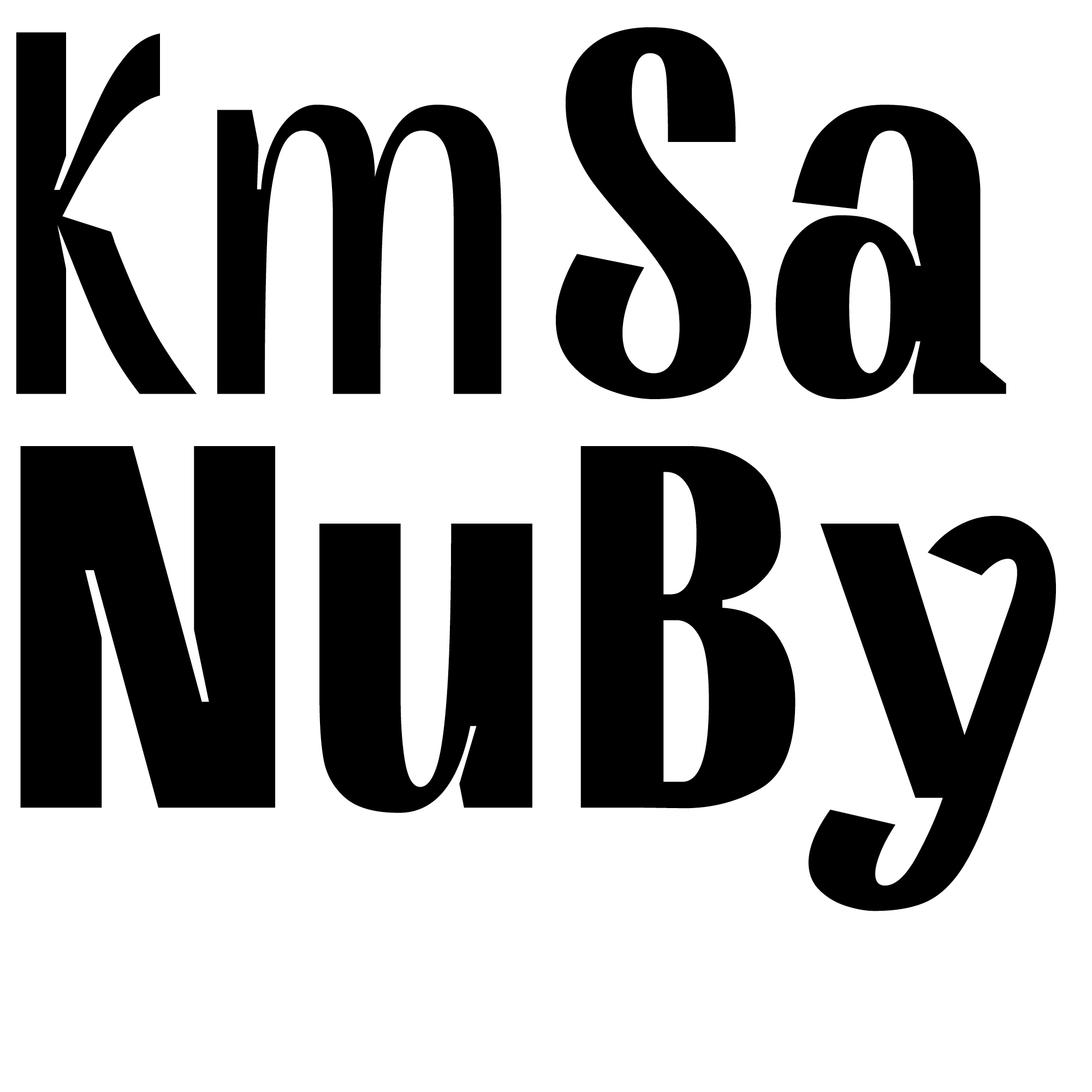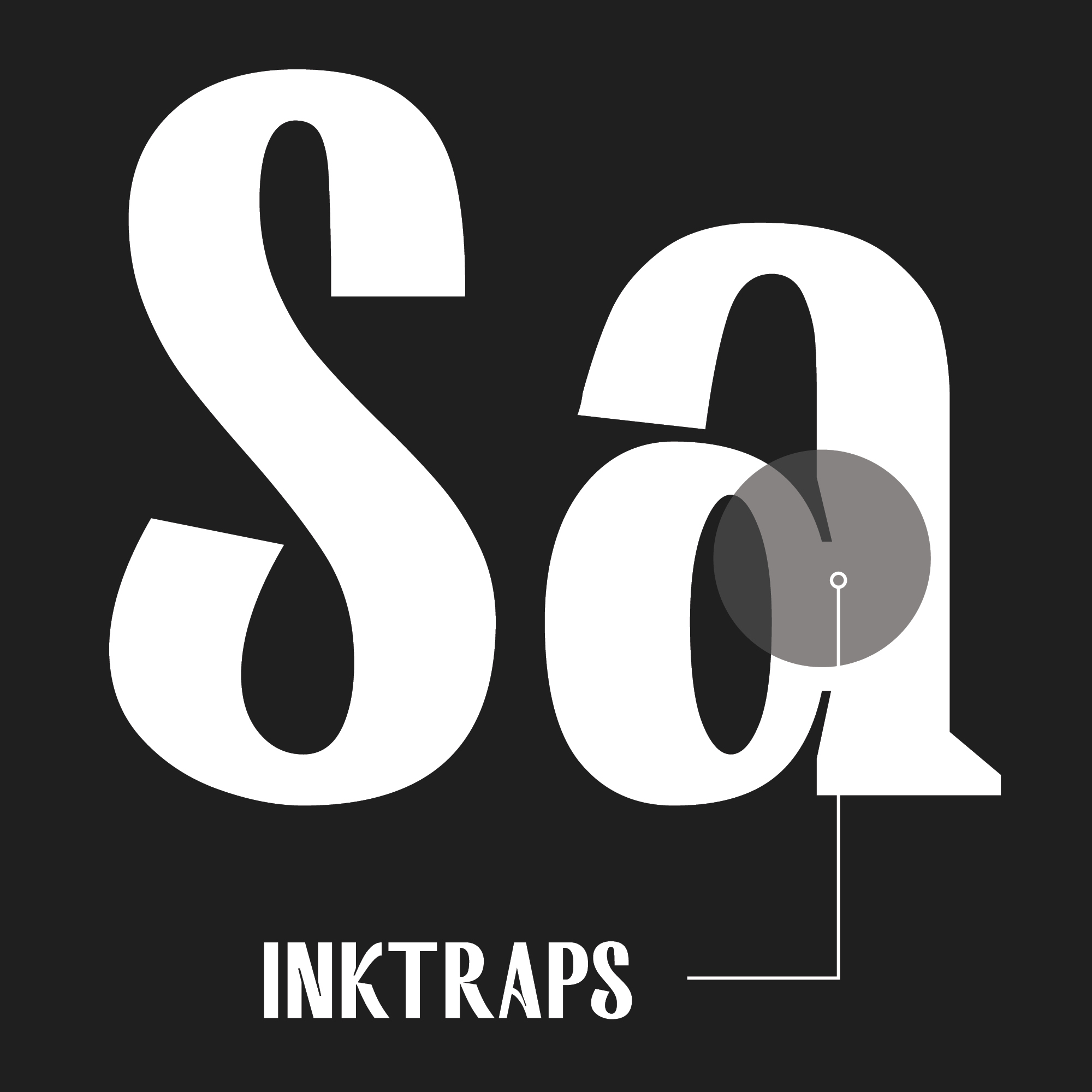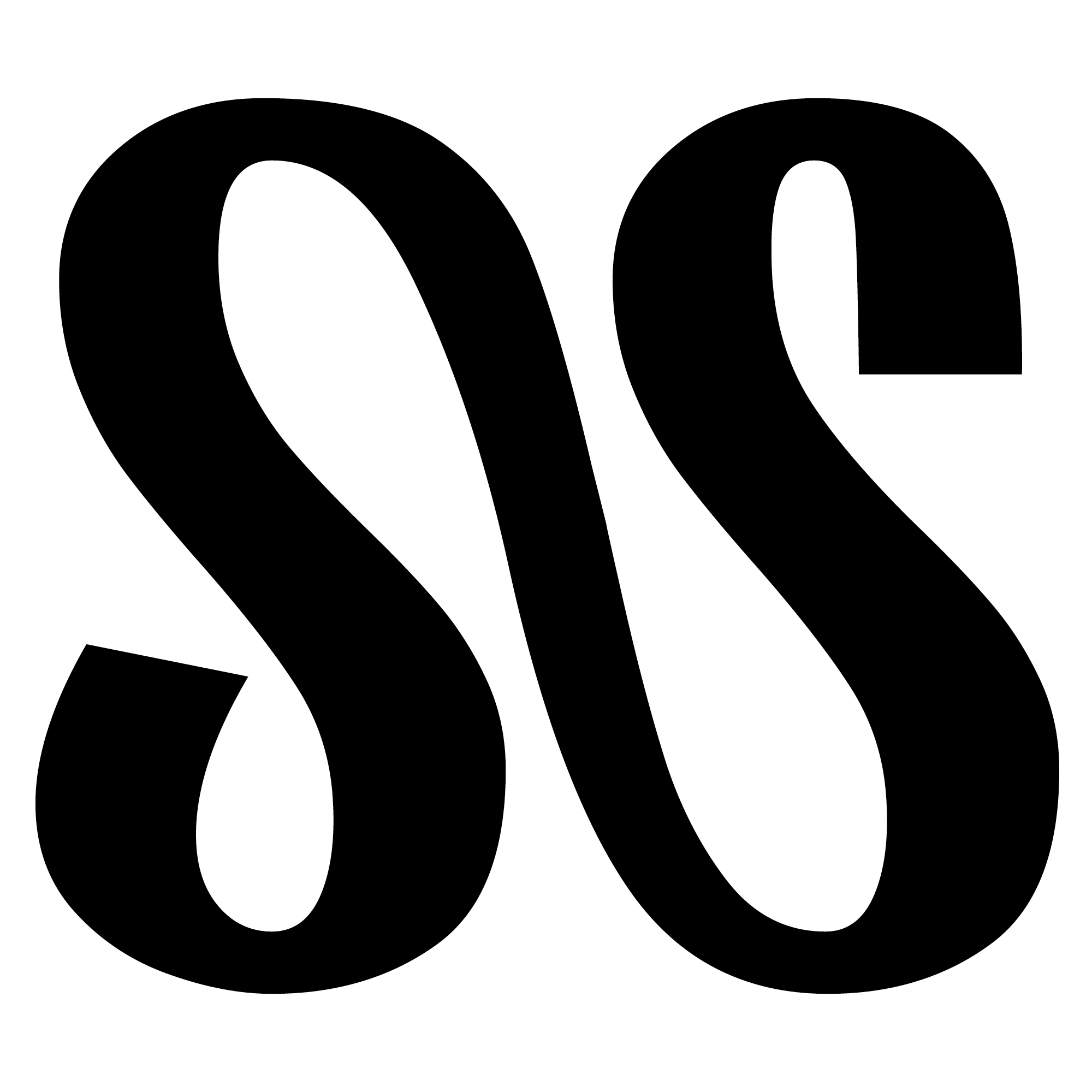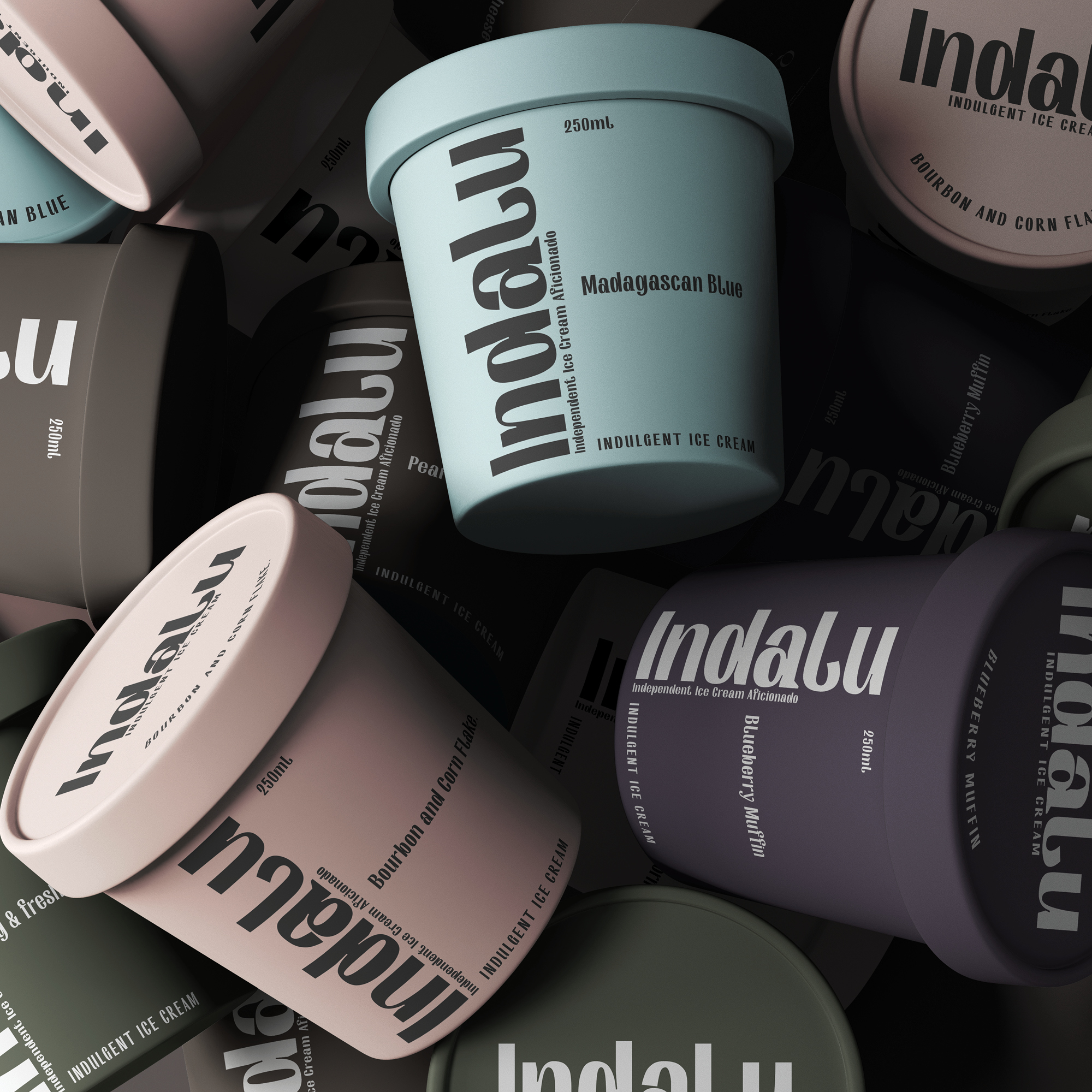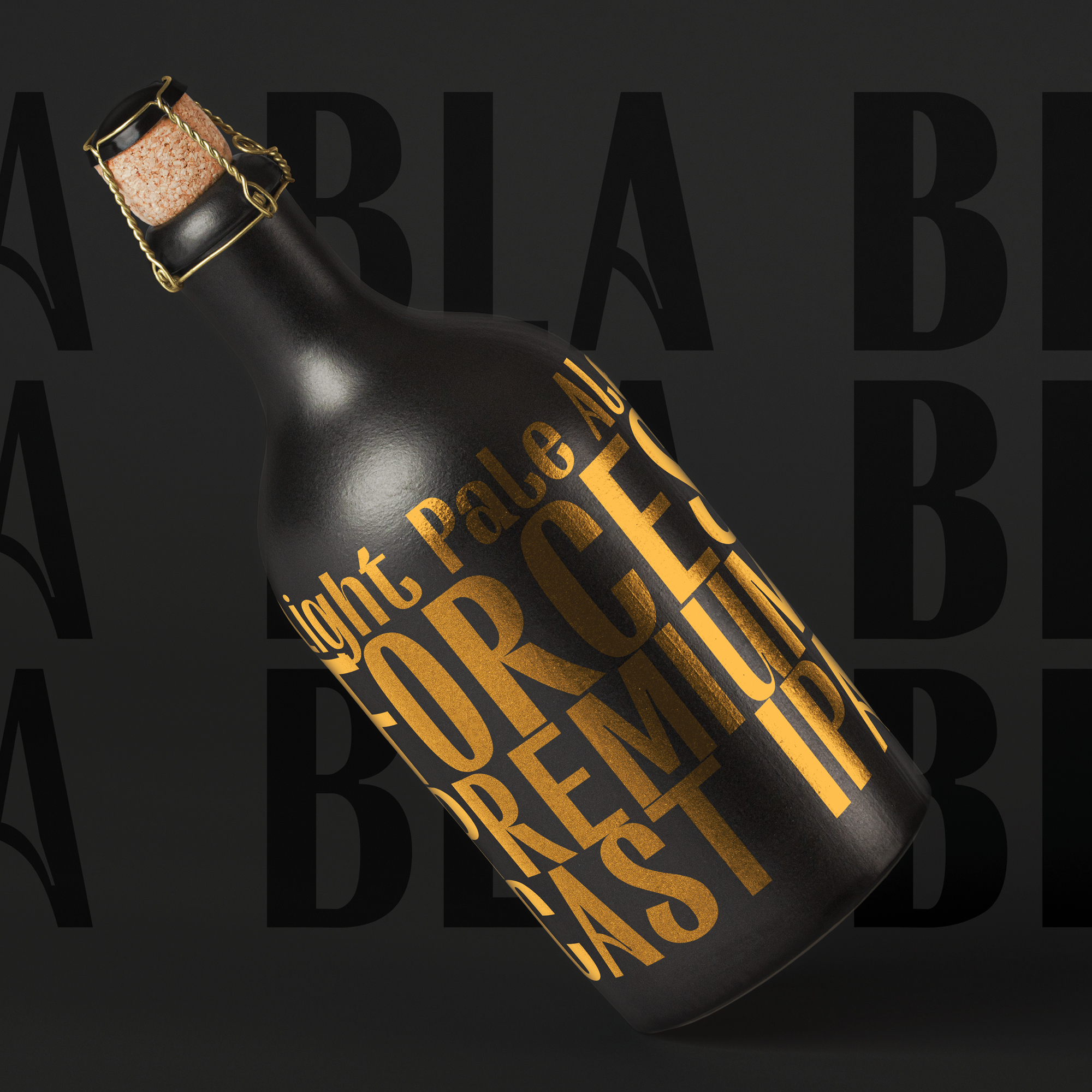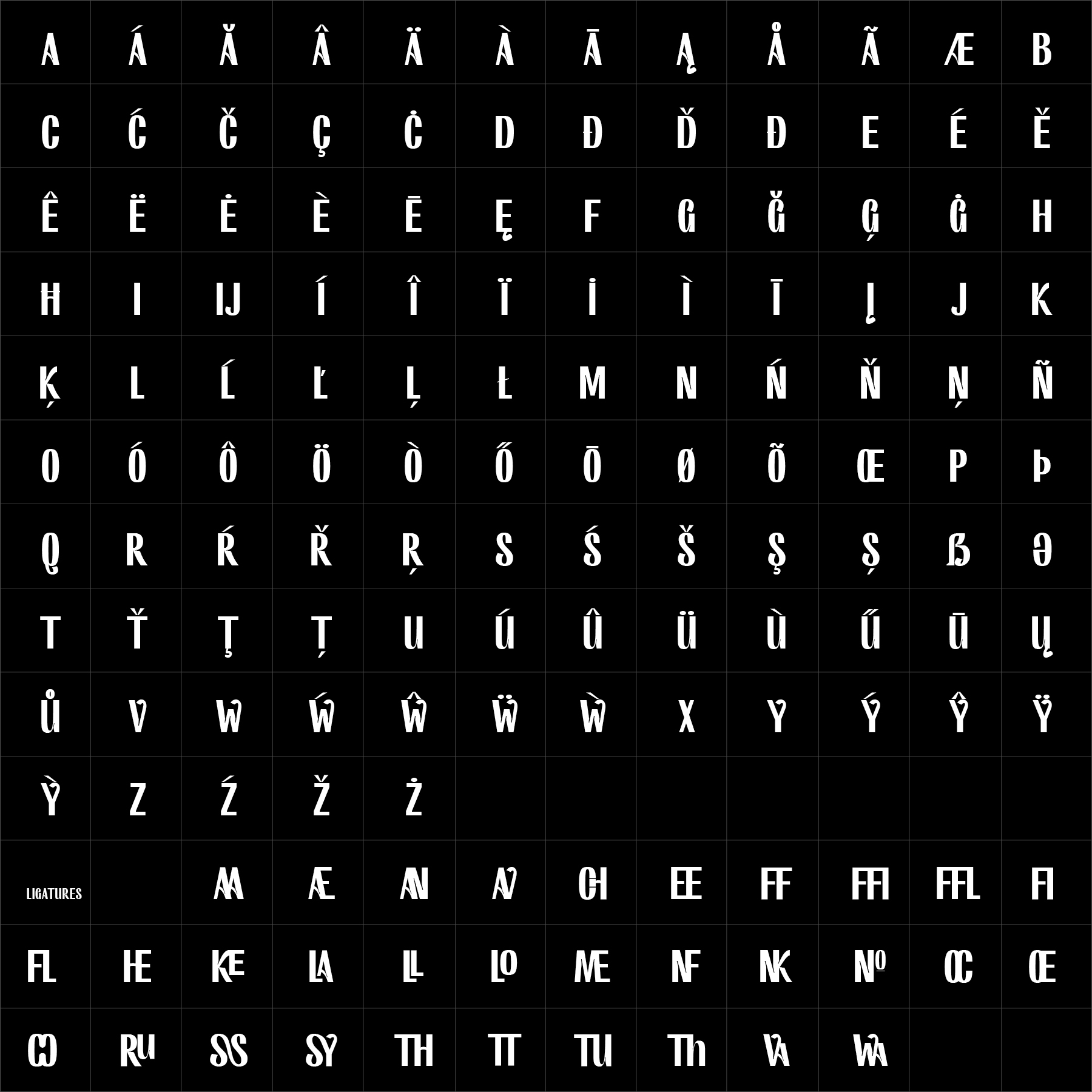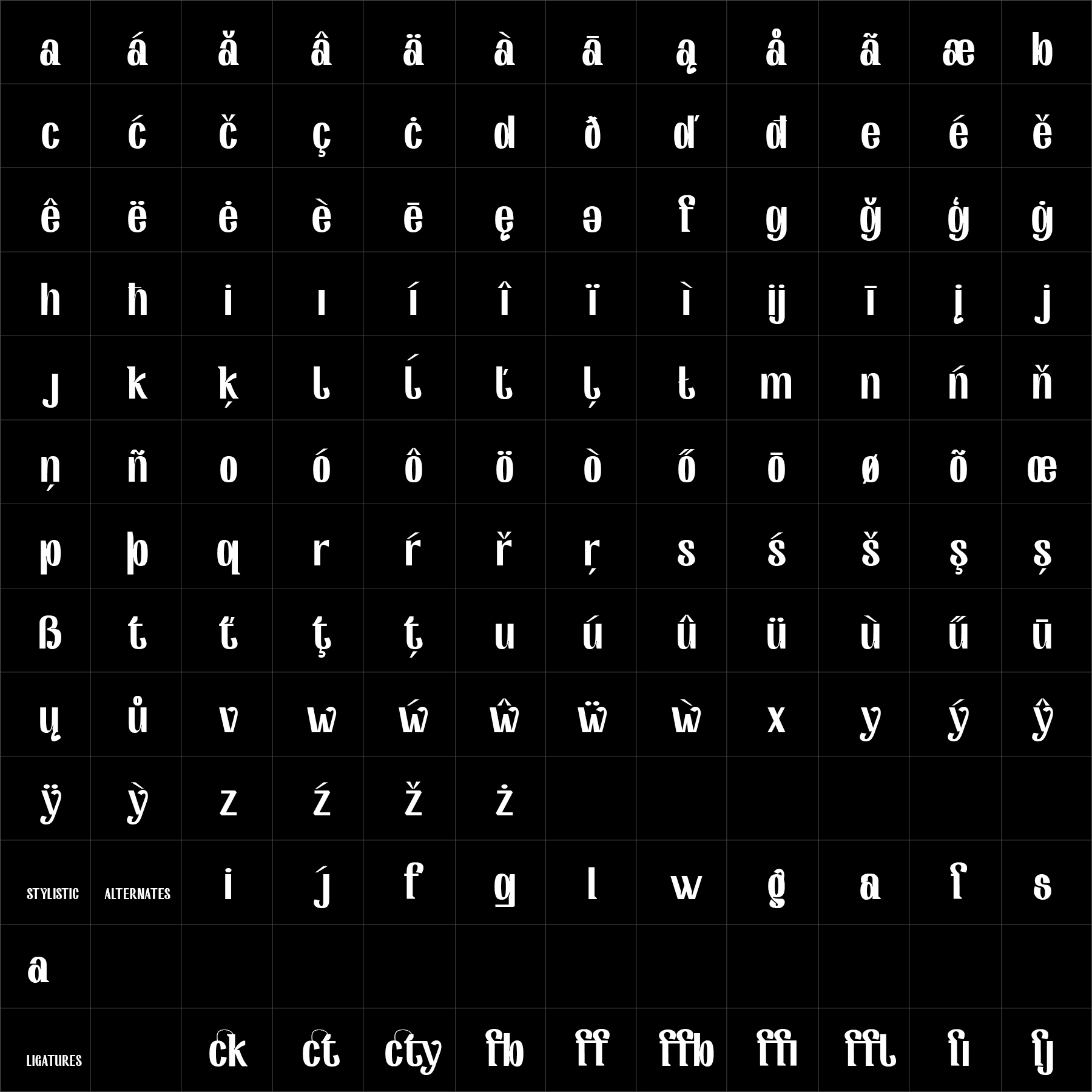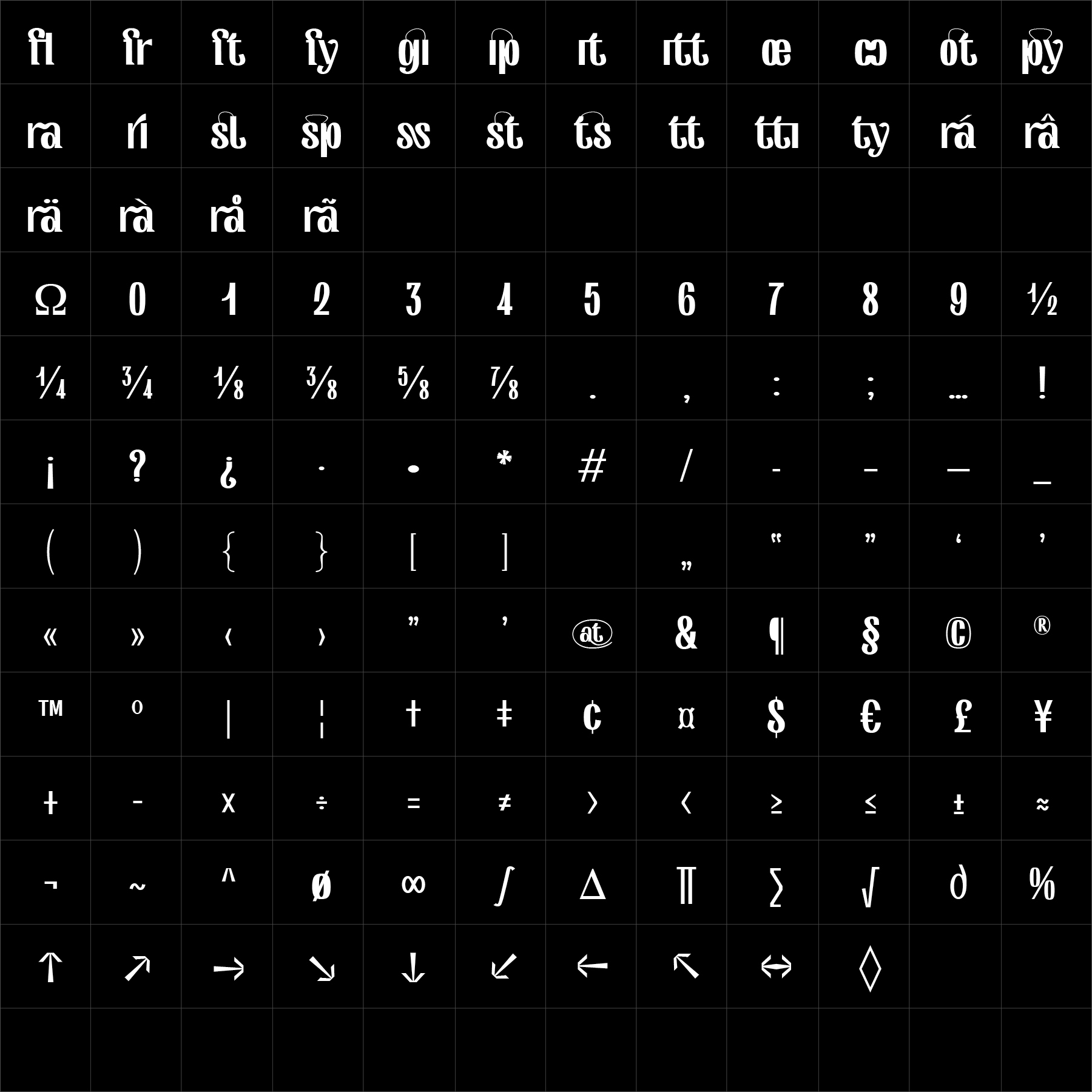
Pulchra
Editorial Serif
Quietly, quite beautiful
Pulchra is an editorial serif shaped by refined proportions, flowing curves and a calm typographic rhythm. Classical influences are balanced by cleaner construction, creating a family that feels elegant without becoming ornate or nostalgic.
Pulchra performs naturally across publishing, visual identities, packaging and cultural communication where typography must convey elegance with clarity and restraint. Its controlled character allows content to feel considered without becoming overly formal. Pulchra offers designers a readable serif family with subtle character and a quietly confident presence across print and digital media.